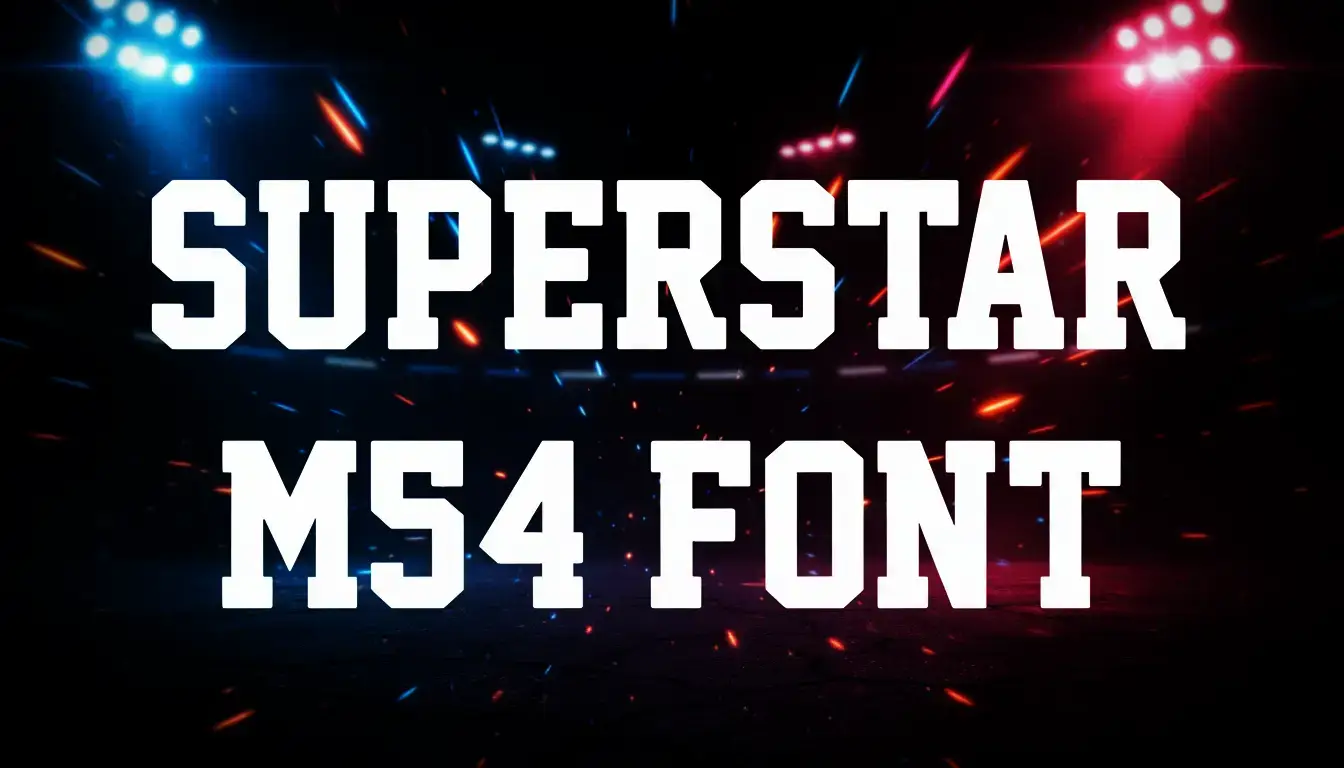
SuperStar M54 Font
SuperStar M54
SuperStar M54 is a fancy font created by Mohammed Rahman and released through M54 (justme54s). It's a decorative display font with plenty of personality, made to grab attention. It's a free download, and you can try it with your own text in the preview above first.
- Designer: Mohammed Rahman
- Publisher: M54 (justme54s)
What You Can Type With SuperStar M54
SuperStar M54 covers the full alphabet in upper and lowercase, plus all ten numbers, so you can set names, dates and prices without switching fonts. Everyday marks like &, !, ? and @ are there too. There are no accented letters like é or ñ, so it's best kept to English text.
Where SuperStar M54 Works Best
Think of SuperStar M54 for posters, logos and eye-catching headlines. Use it for one standout word or headline and let simpler fonts handle the rest.
Does SuperStar M54 support accented letters?
No. SuperStar M54 has no accented letters such as é, ñ or ü, so it's best for English text.